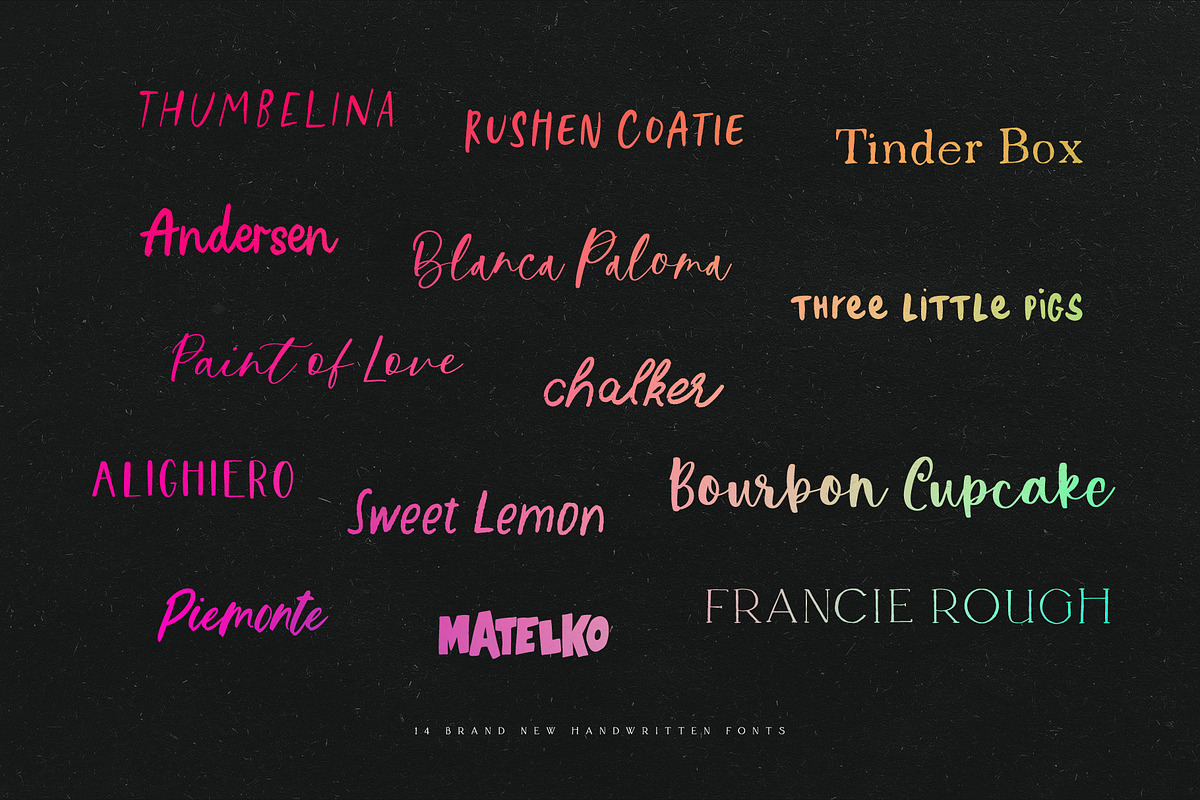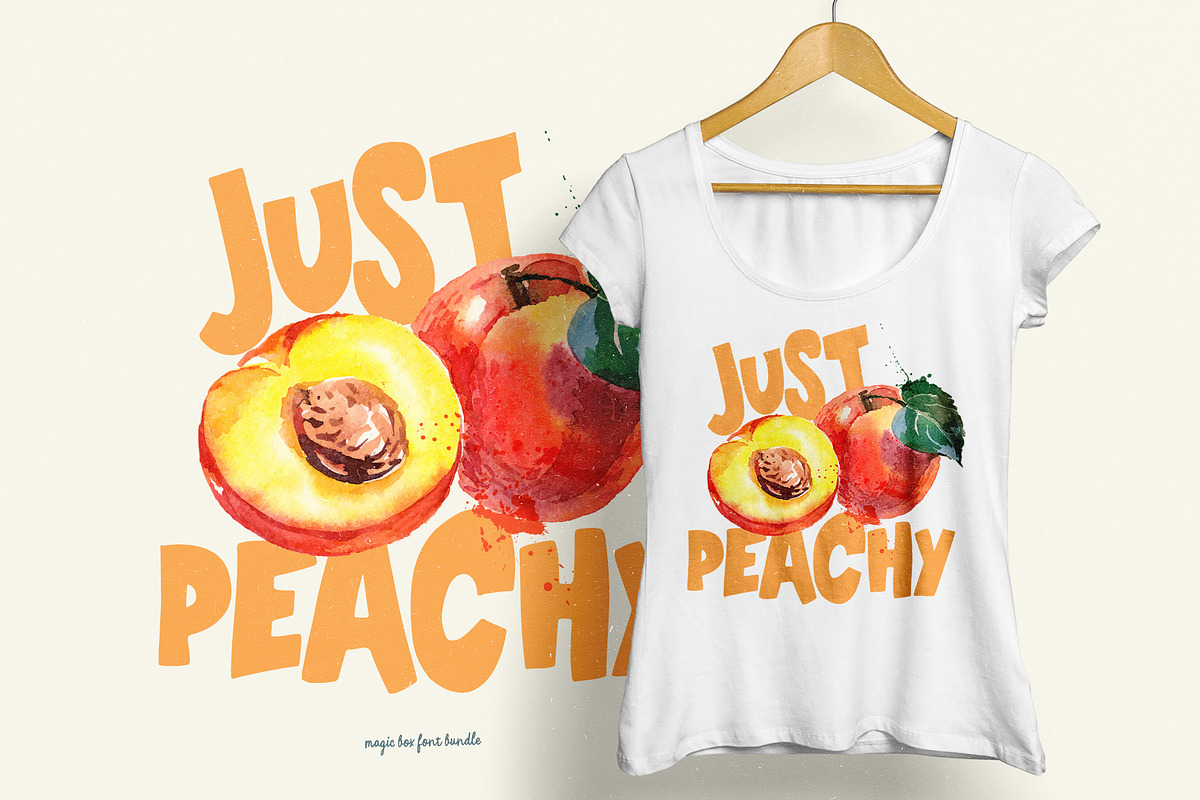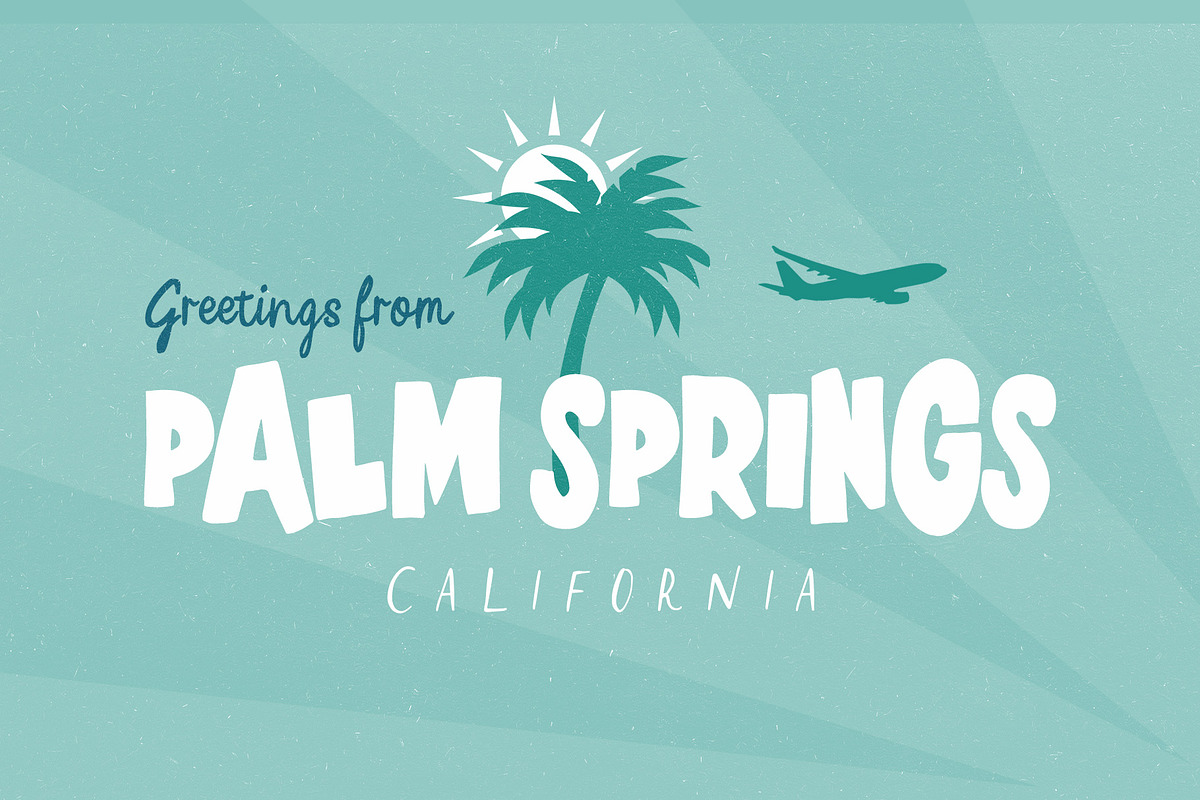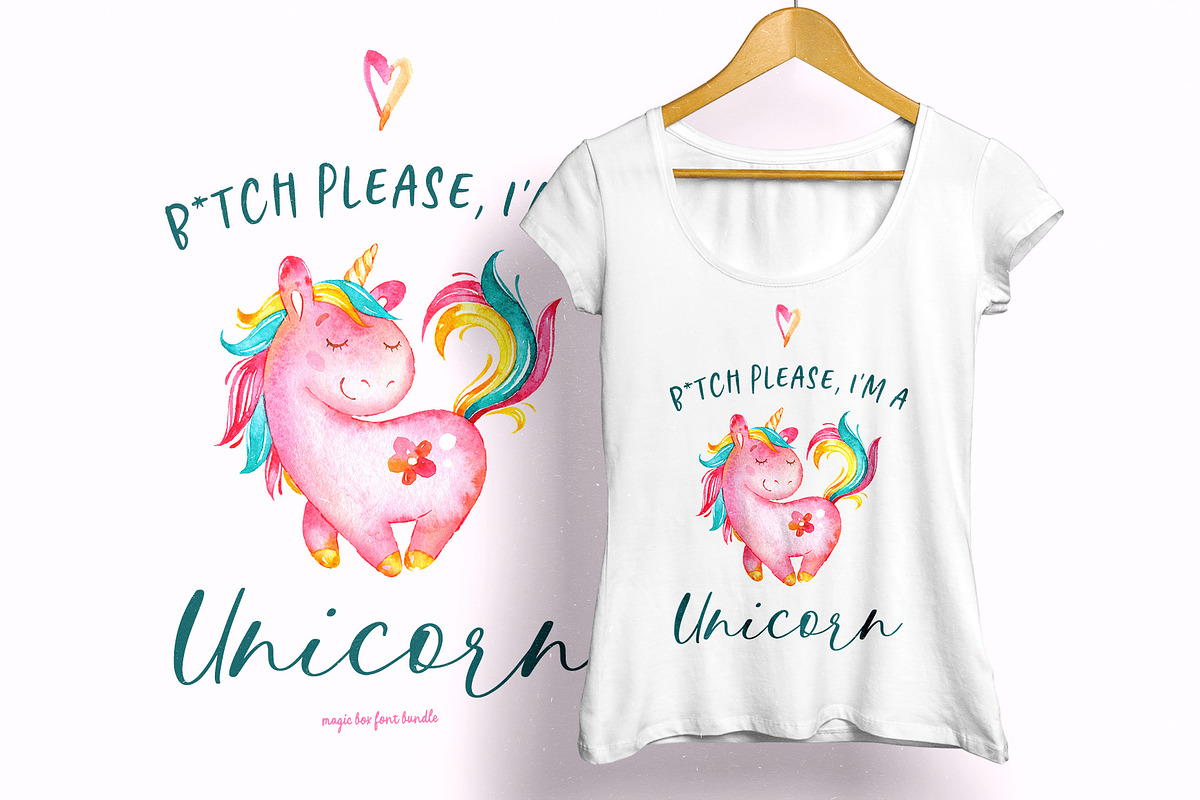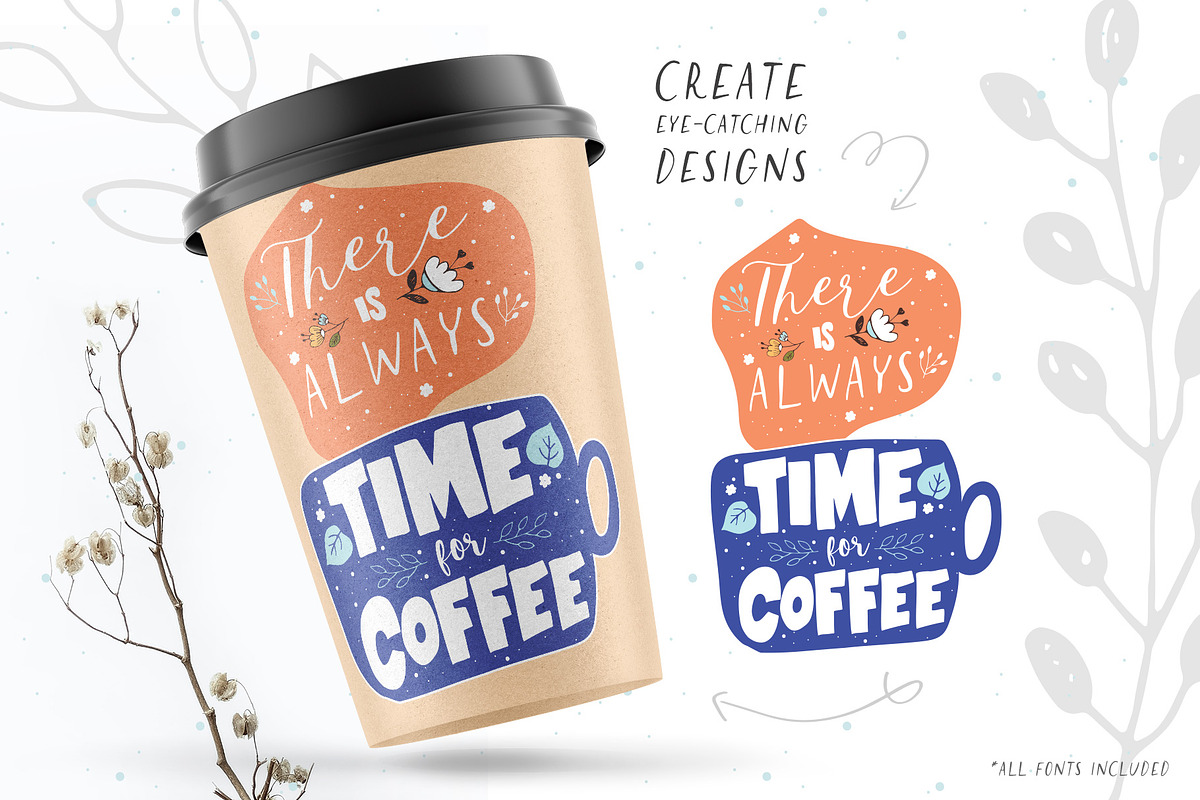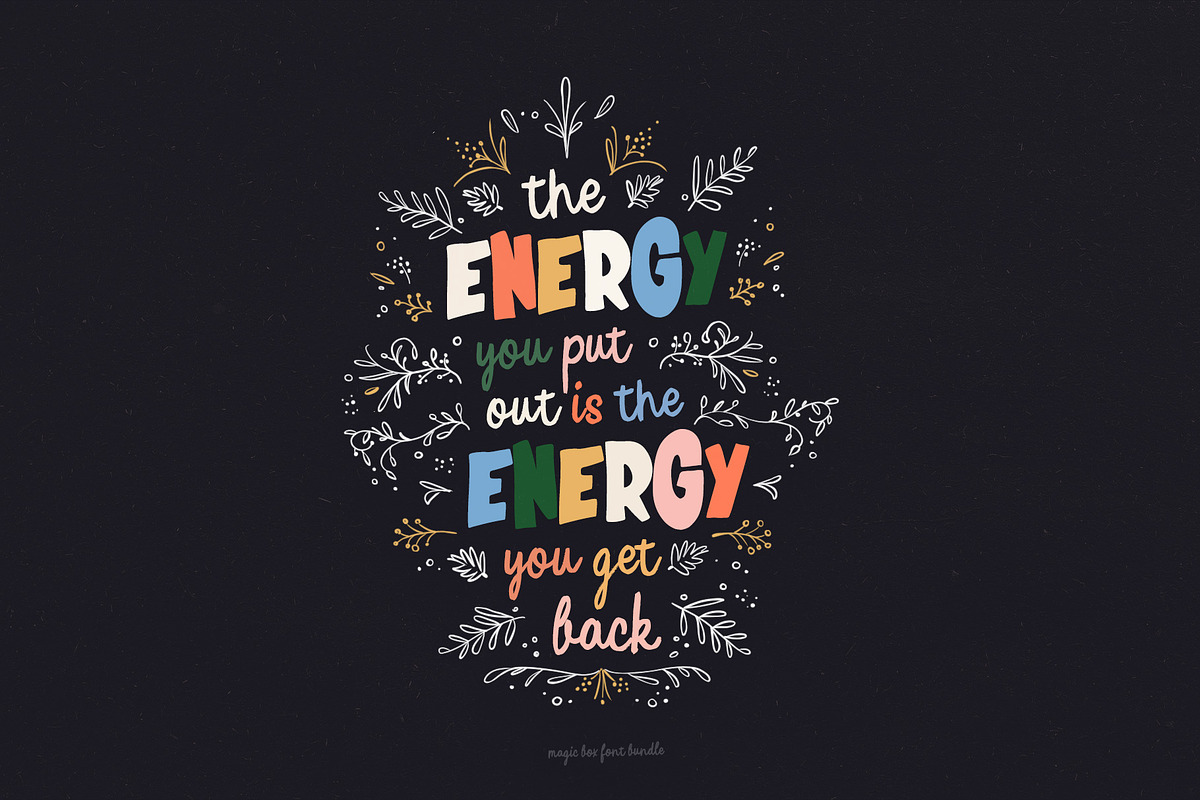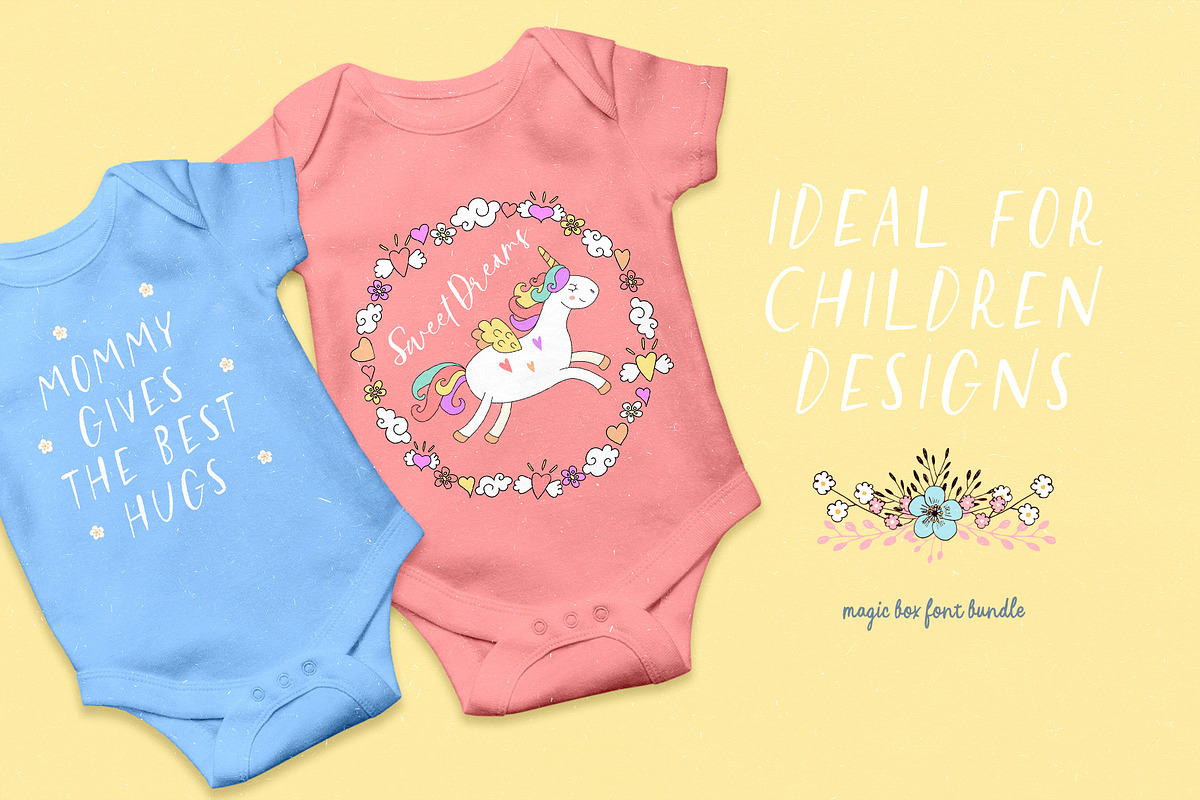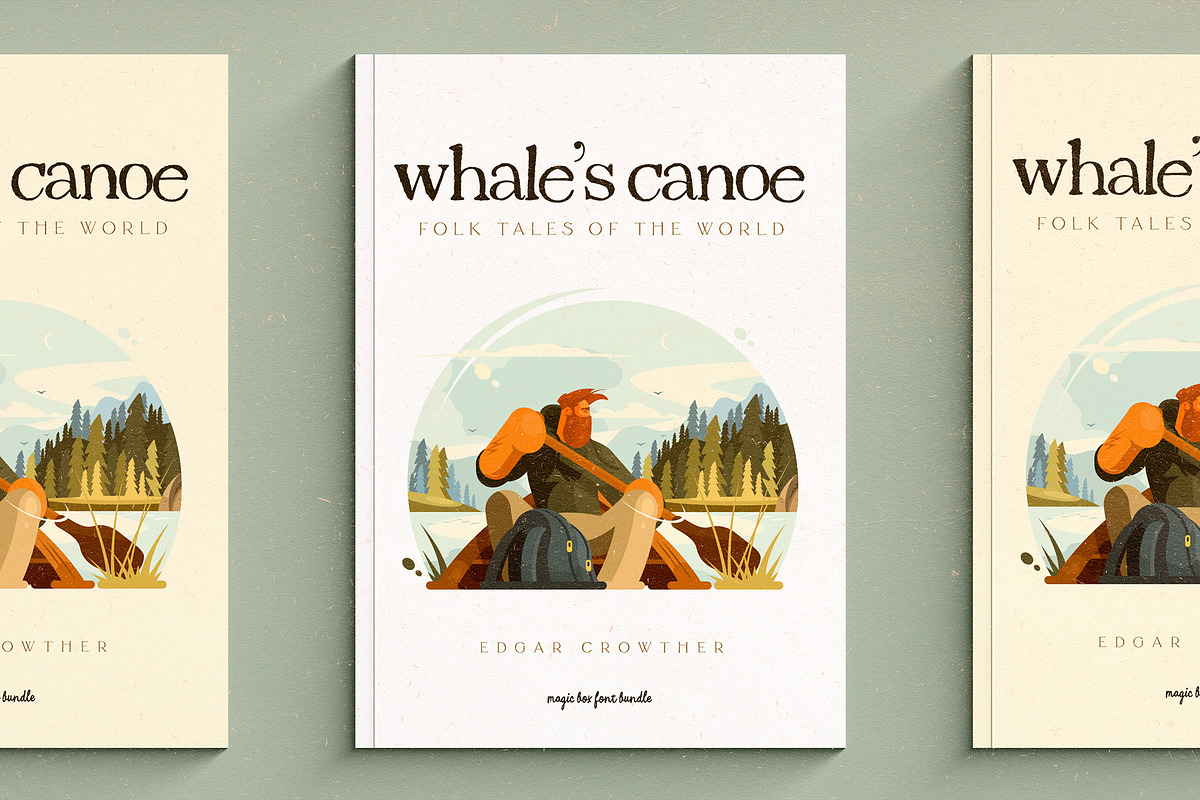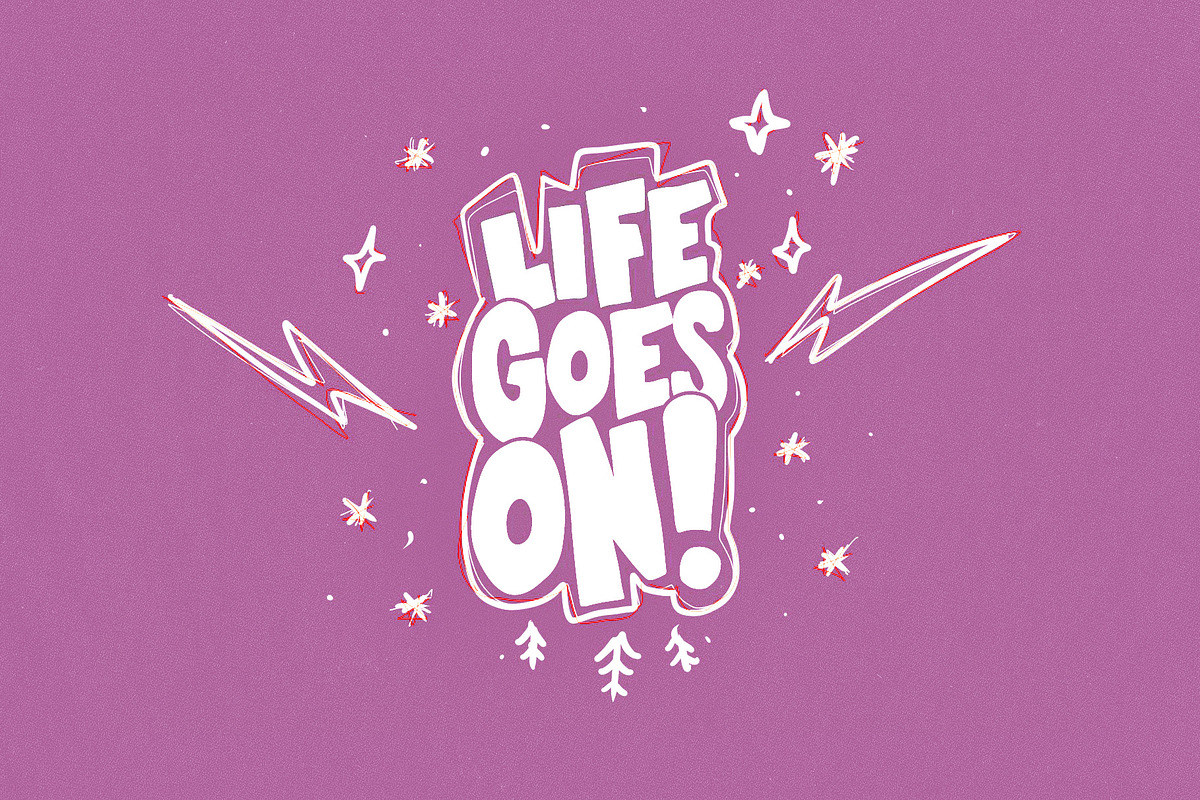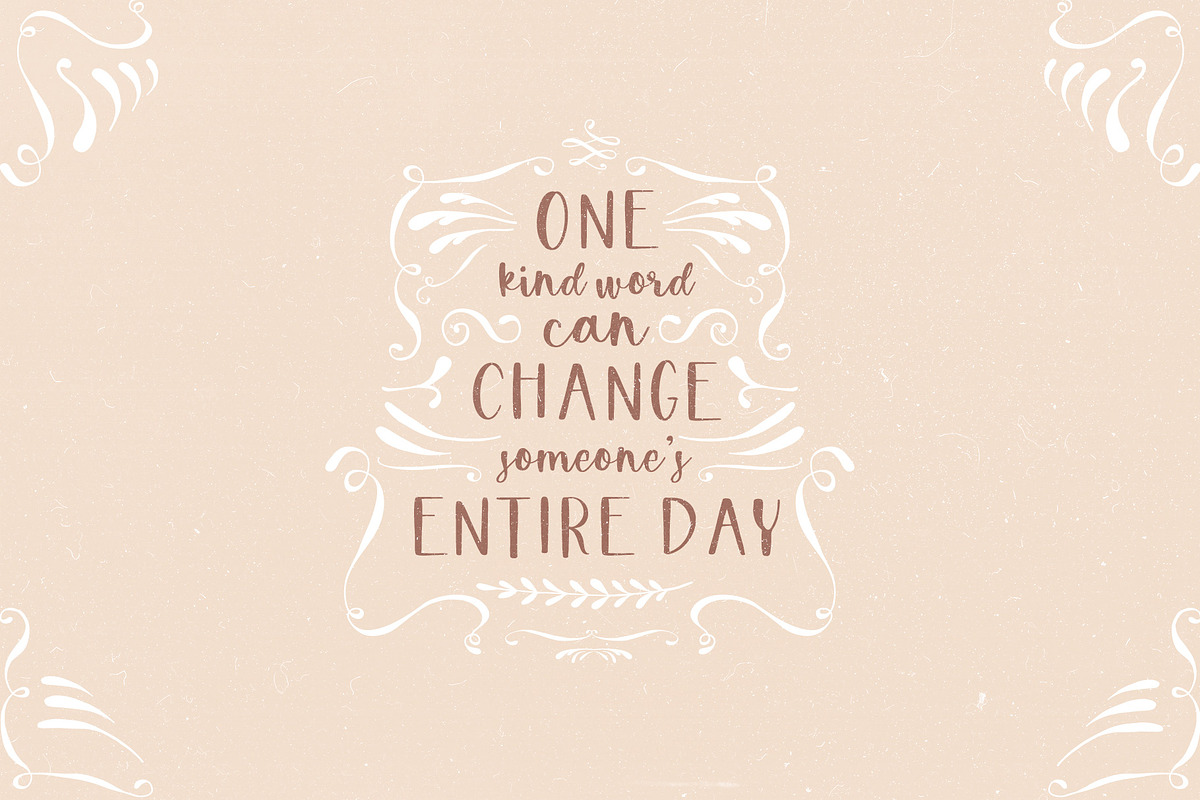
Magic Box - Handcrafted Fonts Bundle
Say hello to the Magic Box! A handcrafted collection of 15 brand new fonts inspired by children books and illustrations. You can mix different styles of handwritten fonts to create beautiful typography, ideal for instagram, quotes, shirt designs, children’s designs, books, posters and many more!
- Alighiero - Handwritten all-caps font ideal for headlines
- Andersen - is a handwritten font with a casual style that looks great as a display font or in small texts
- Blanca Paloma - An elegant handwritten font in “bouncing” style
- Bourbon Cupcake - is a cute handwritten script font.
- Chalker - A stylish handwritten small-caps font with an chalk texture.
- Francie Rough - is a handwritten modern serif font
- Matelko - A playful, bold all-caps font. Pairs great with Thumbelina.
- Paint of Love - is elegant handwritten font ideal for wedding invitations.
- Rushen Coatie A bouncy hand-painted all-caps font.
- Three Little Pigs - A set of bold upper & lowercase characters.
- Thumbelina - My favorite one!
- Tinder Box - Handletterered serif font ideal for small text.
All fonts include multilingual support.